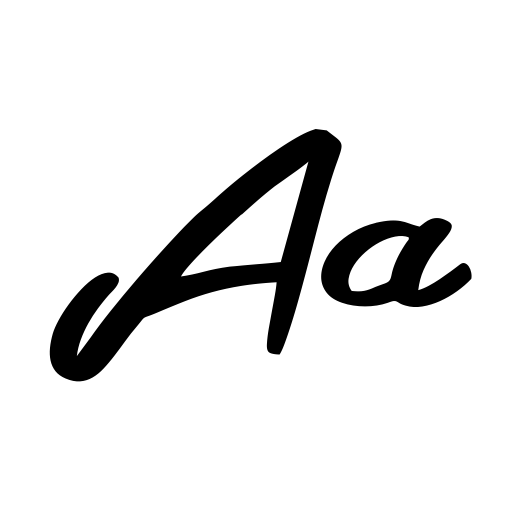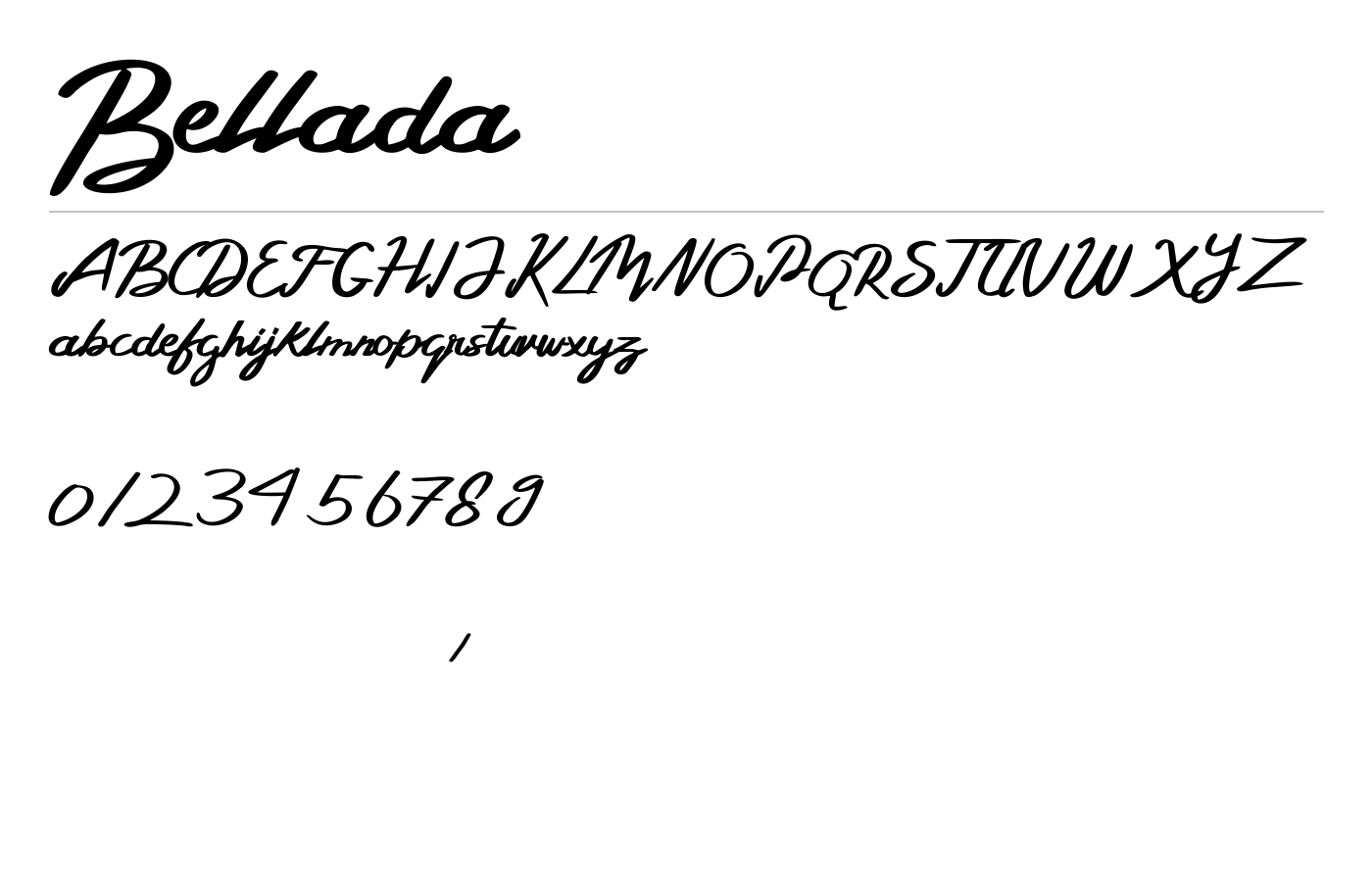
Bellada is a stylish script font that features smooth, flowing strokes with a moderately bold weight, giving it an elegant and dynamic personality. Its cursive design with both uppercase and lowercase letters, along with neat, slightly condensed letterforms, makes it perfect for branding, invitations, and logos that seek a graceful, handwritten feel. This font’s lively yet refined style works well for fashion, beauty, and creative projects that want to convey sophistication with a personal touch.
Bellada Font
About Bellada Font